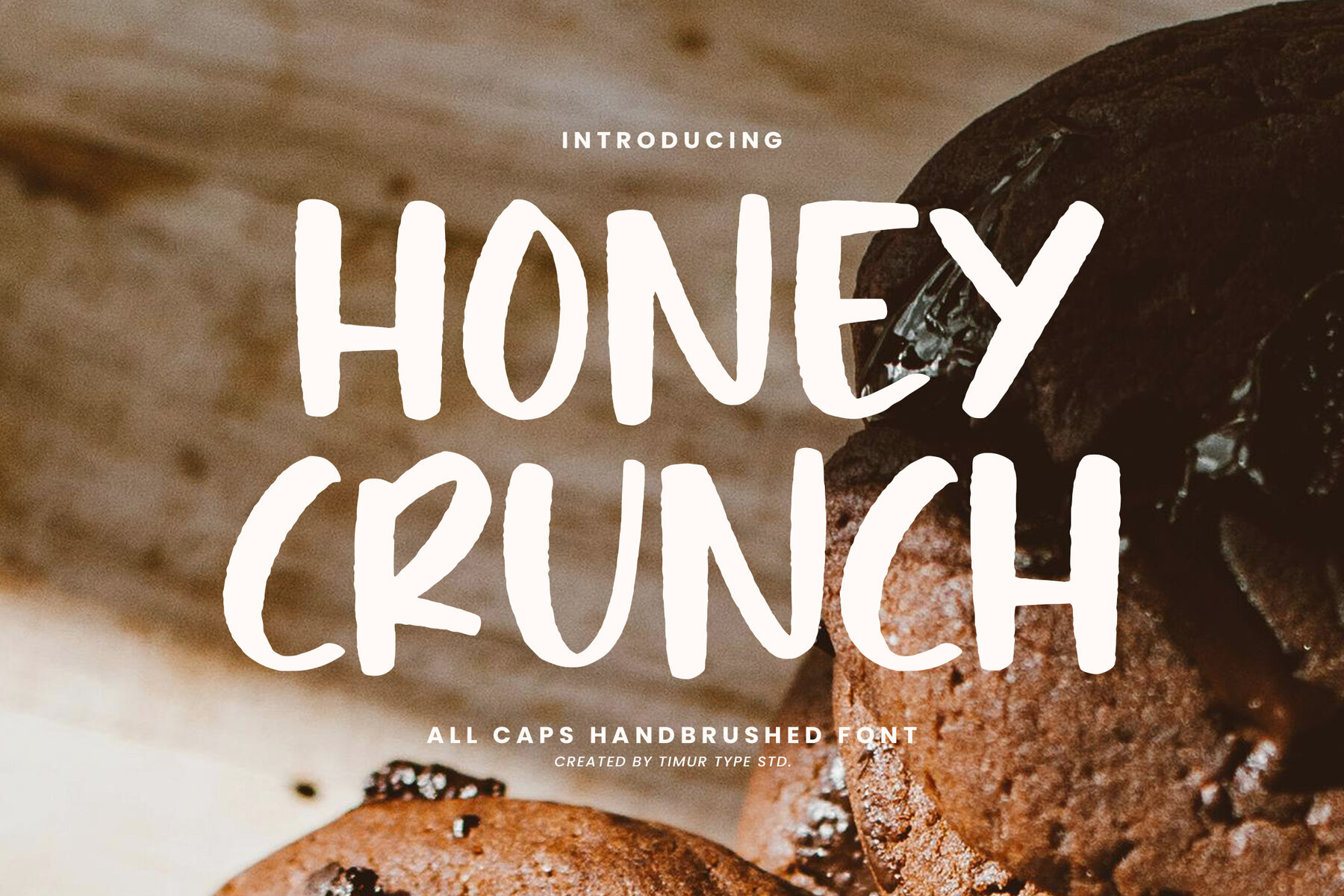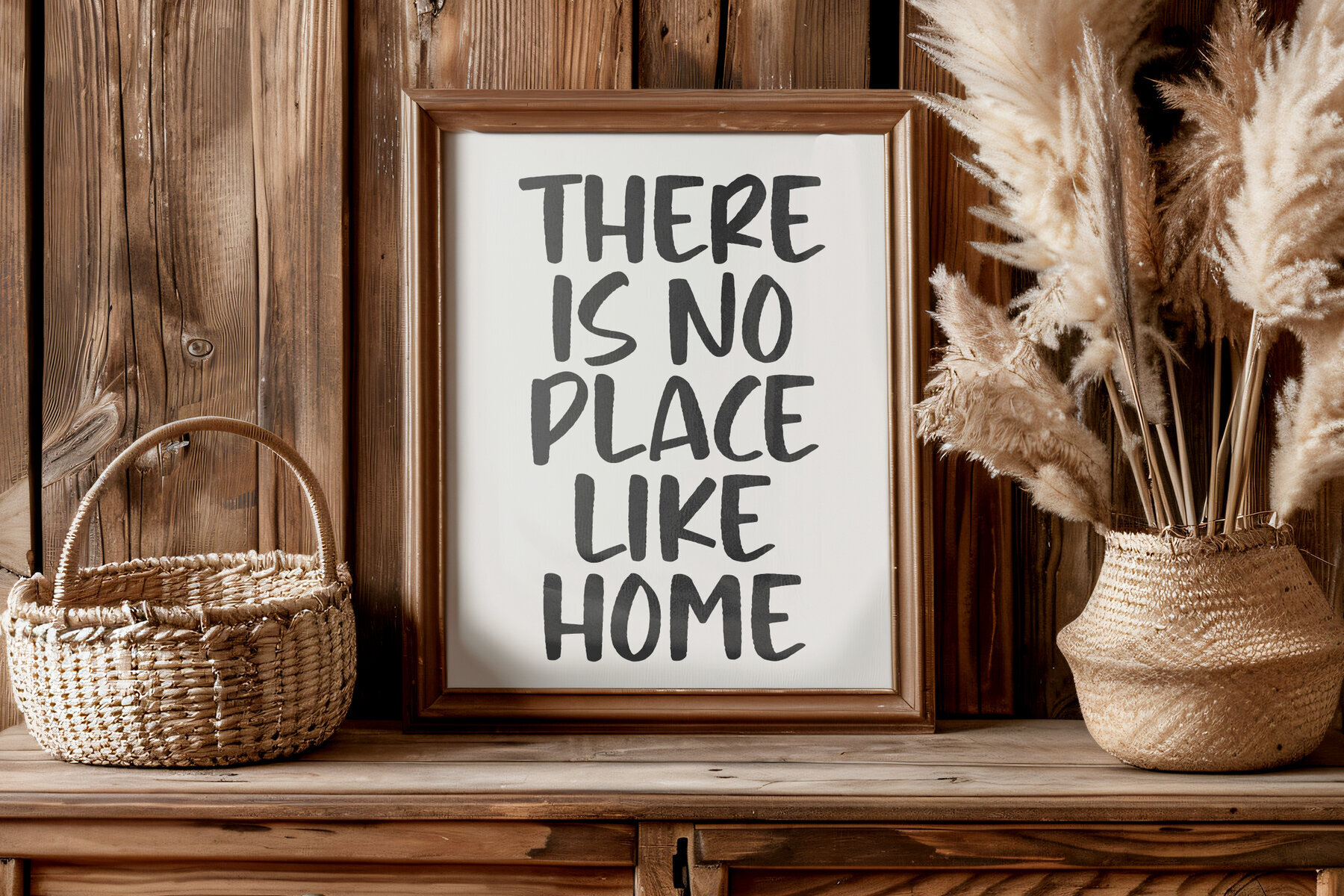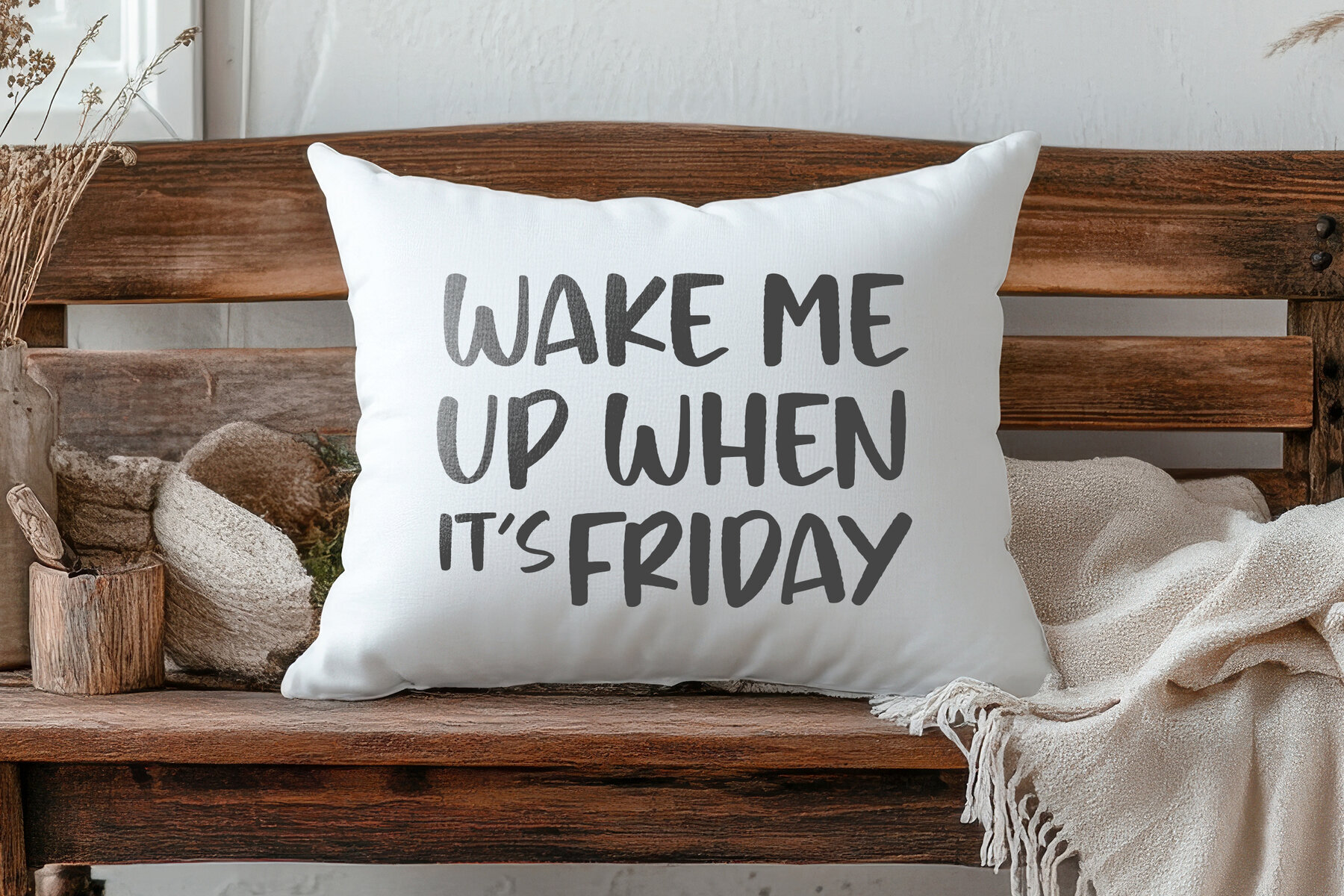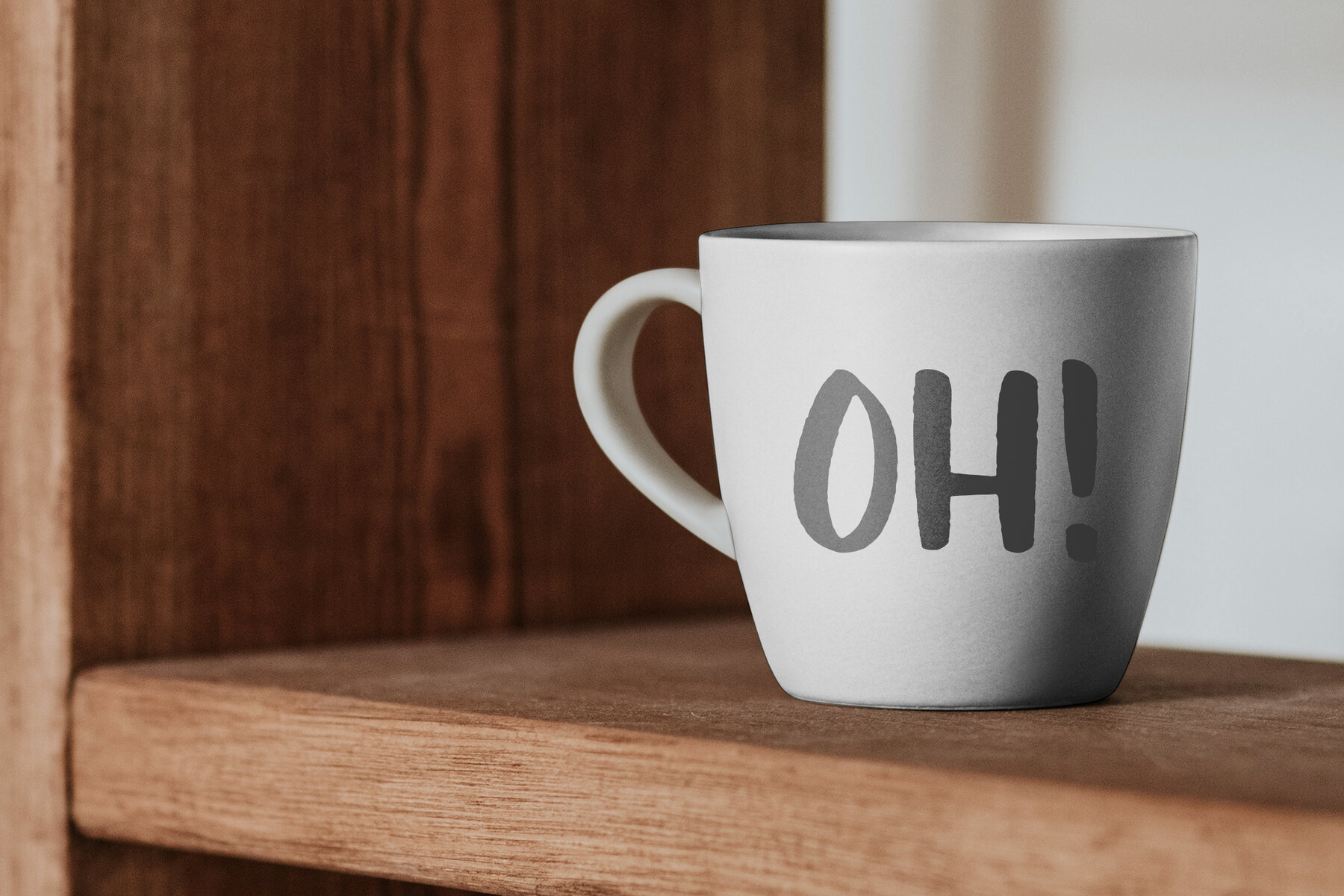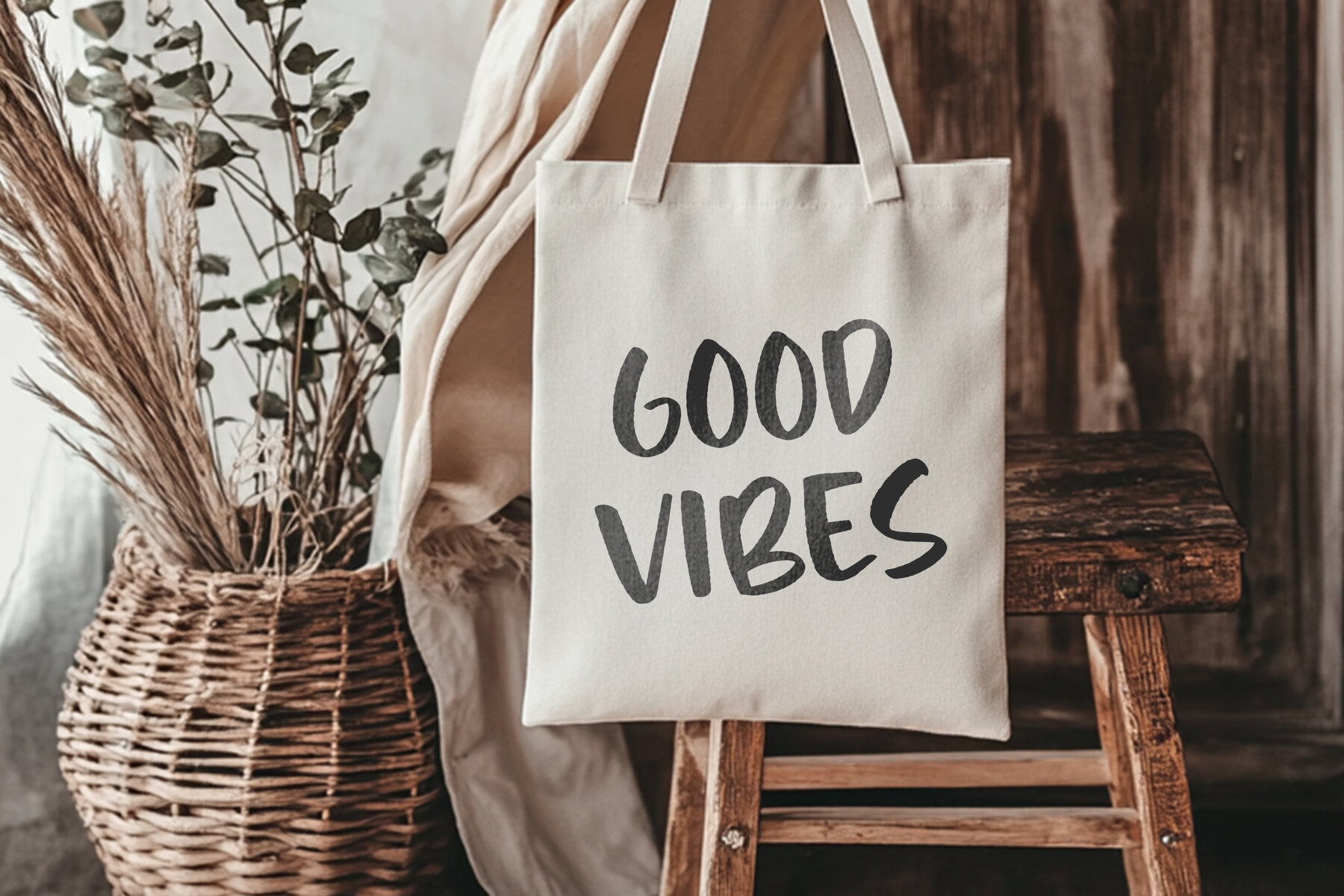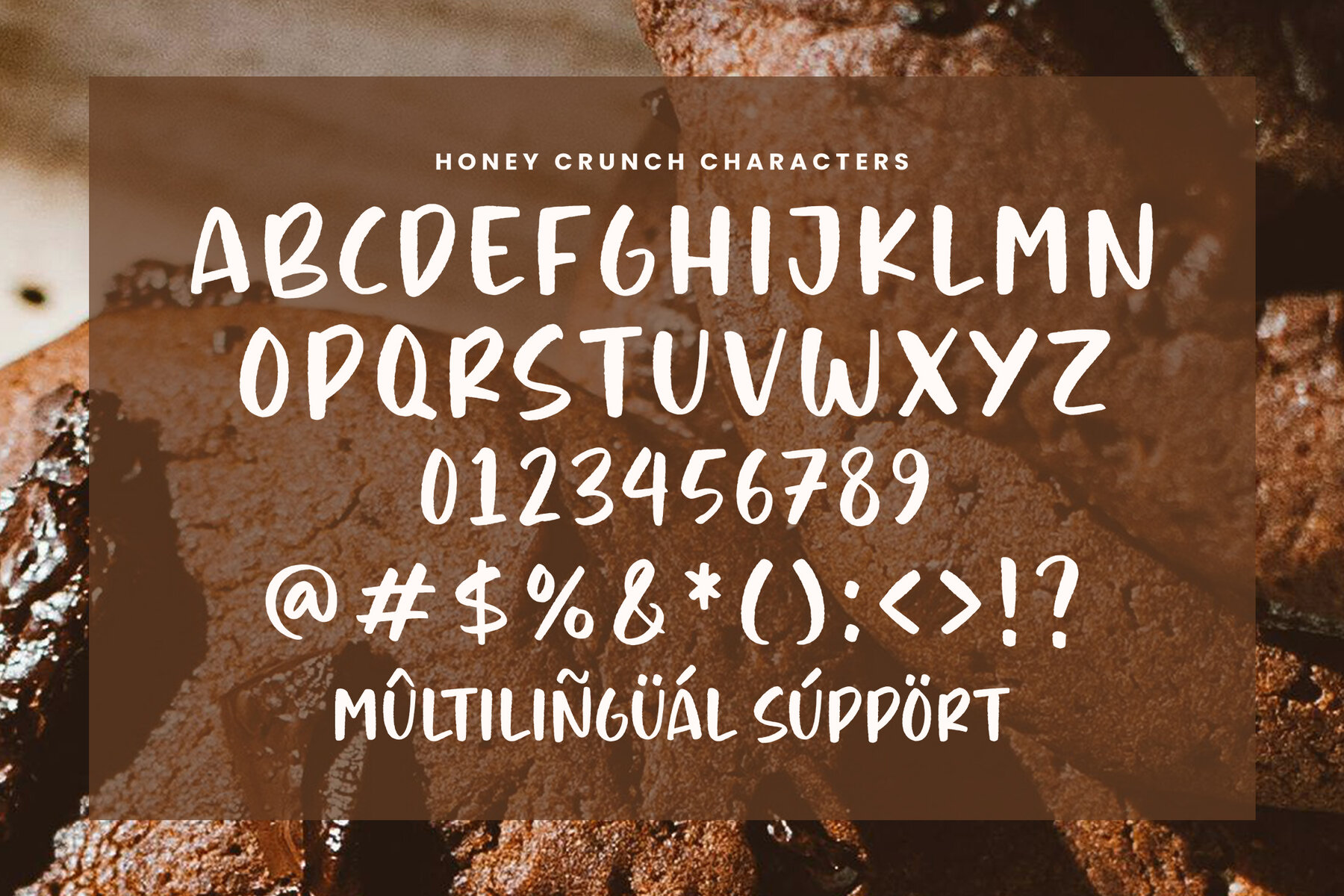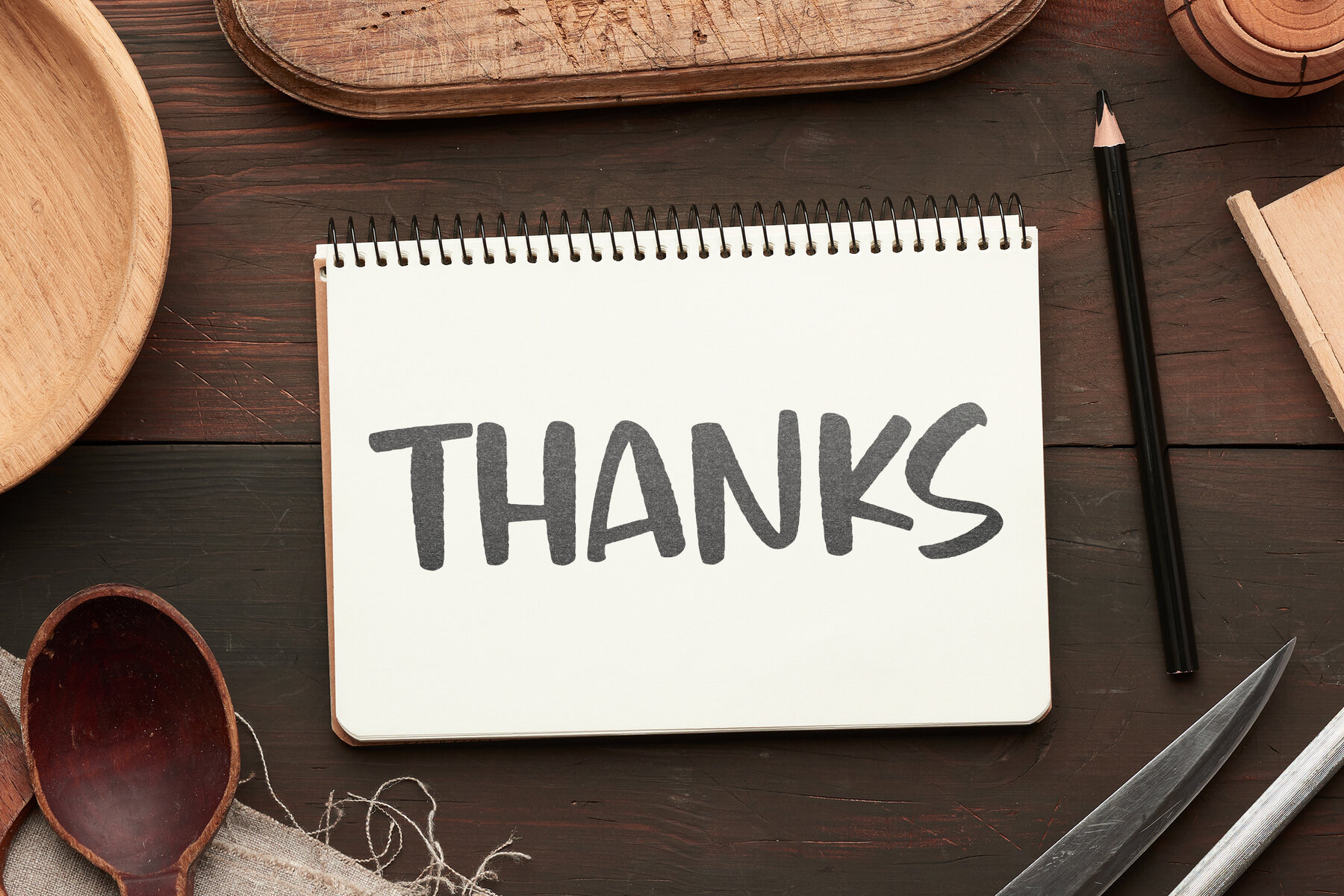
Honey Crunch Font
Honey Crunch
Introducing Honey Crunch, an all-caps handbrushed font that infuses projects with a playful, organic essence. Its bold and expressive strokes, paired with subtly irregular shapes, capture the spirited dynamism of hand-drawn lettering. This font is an excellent choice for designs that seek a warm, welcoming atmosphere. Honey Crunch also supports multiple languages, enhancing its versatility for diverse design needs.Honey Crunch: Handbrushed Font with Playful Energy